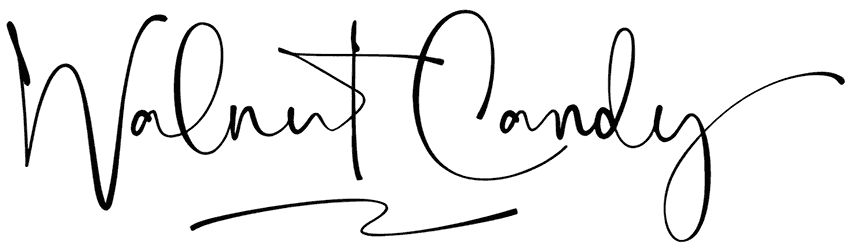
Walnut Candy Font
Walnut Candy is a signature font that has an organic look to it. Despite the fact that it is not readable and lacks number characters, this font works wonderfully for the design of greeting cards, invitations, writing, and signature motifs, among other applications.
Walnut Candy is a handcrafted font designed to bring your branding to life and add a touch of elegance,